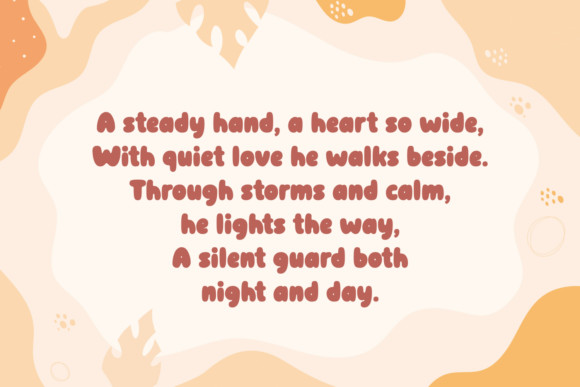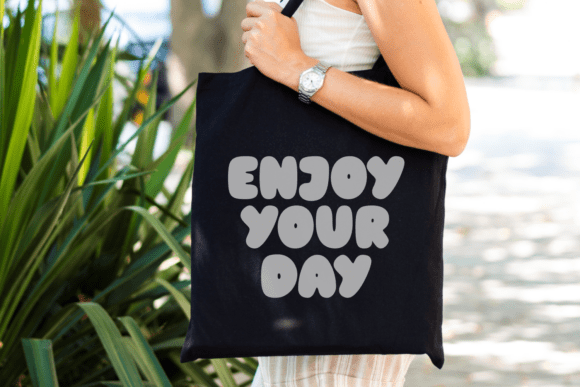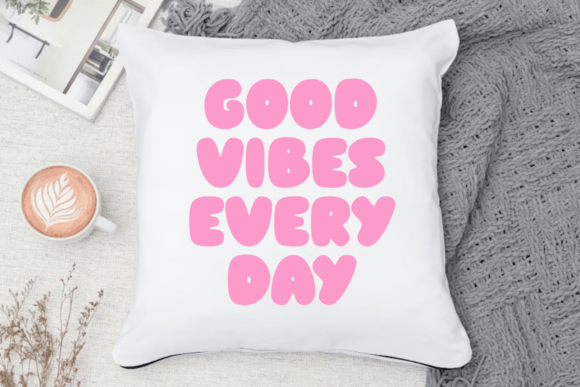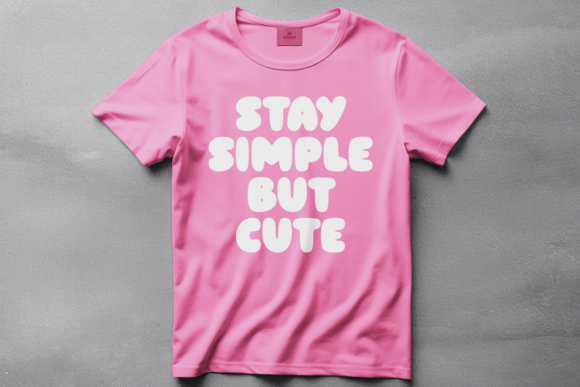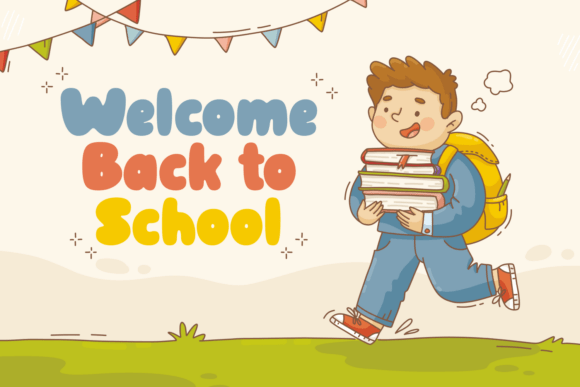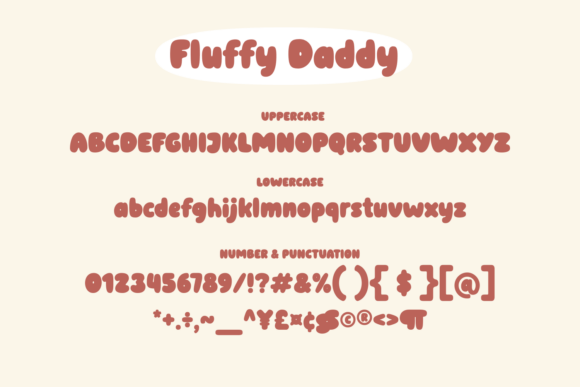
Introducing Fluffy Daddy Font: The Ultimate Choice for Playful and Bold Designs
Are you tired of using the same old fonts for your creative projects? Look no further than Fluffy Daddy, a bold and playful display font that’s sure to make your designs stand out. With its unique combination of soft curves and chunky, confident style, Fluffy Daddy is the perfect choice for designers and crafters who want to add a touch of warmth and friendliness to their work.
The Characteristics of Fluffy Daddy Font
So, what makes Fluffy Daddy font so special? For starters, its rounded edges and bubbly letterforms give it a warm, friendly personality that’s hard to resist. The font’s chunky style adds a level of confidence and boldness, making it perfect for designs that need to grab attention. Whether you’re working on a children’s book, a branding project, or a social media graphic, Fluffy Daddy font is sure to bring a smile to your audience’s face.
Fluffy Daddy font is incredibly versatile, making it suitable for a wide range of design projects. Here are just a few ideas to get you started:
- Children’s Books: Fluffy Daddy font is a natural fit for children’s books, adding a playful and whimsical touch to your story.
- Branding: Use Fluffy Daddy font to create a memorable and lovable brand identity that will resonate with your target audience.
- Posters: Add a bold and eye-catching headline to your poster with Fluffy Daddy font.
- Social Media Graphics: Make your social media graphics stand out with Fluffy Daddy font’s playful and engaging style.
Why Choose Fluffy Daddy Font?
So, why should you choose Fluffy Daddy font for your next design project? Here are just a few reasons:
- Unique Style: Fluffy Daddy font has a unique and distinctive style that’s sure to set your design apart from the crowd.
- Easy to Read: Despite its bold and chunky style, Fluffy Daddy font is surprisingly easy to read, making it perfect for headlines and titles.
- Versatile: Fluffy Daddy font can be used for a wide range of design projects, from children’s books to branding and advertising.
- Fun and Approachable: Fluffy Daddy font adds a fun and approachable vibe to your design, making it perfect for projects that need to connect with a younger audience.
How to Use Fluffy Daddy Font in Your Design
Using Fluffy Daddy font in your design is easy. Here are a few tips to get you started:
- Pair with Other Fonts: Pair Fluffy Daddy font with other fonts to create a unique and interesting contrast.
- Experiment with Colors: Try out different colors and color combinations to see what works best with Fluffy Daddy font.
- Play with Size: Experiment with different font sizes to create visual interest and hierarchy in your design.
In conclusion, Fluffy Daddy font is a bold and playful display font that’s perfect for designers and crafters who want to add a touch of warmth and friendliness to their work. With its unique combination of soft curves and chunky, confident style, Fluffy Daddy font is sure to make your designs stand out. Whether you’re working on a children’s book, a branding project, or a social media graphic, Fluffy Daddy font is the ultimate choice for playful and bold designs.
Get Ready to Fall in Love with Fluffy Daddy Font